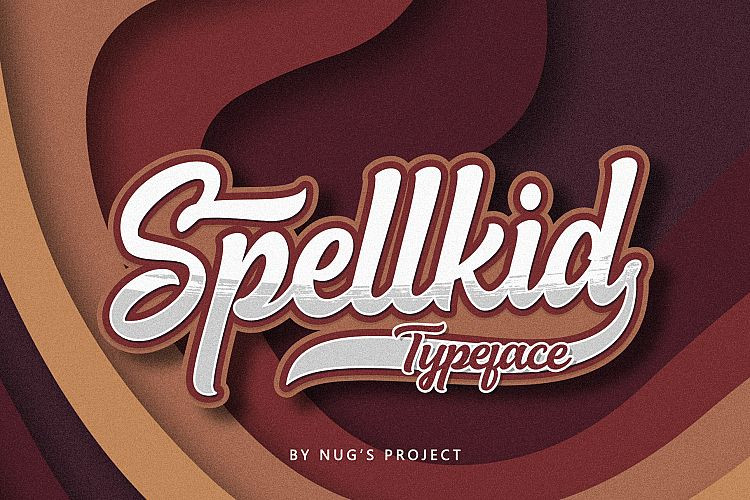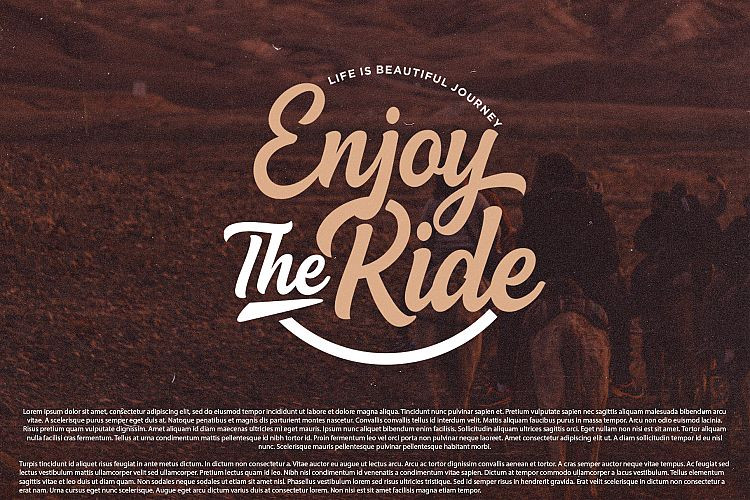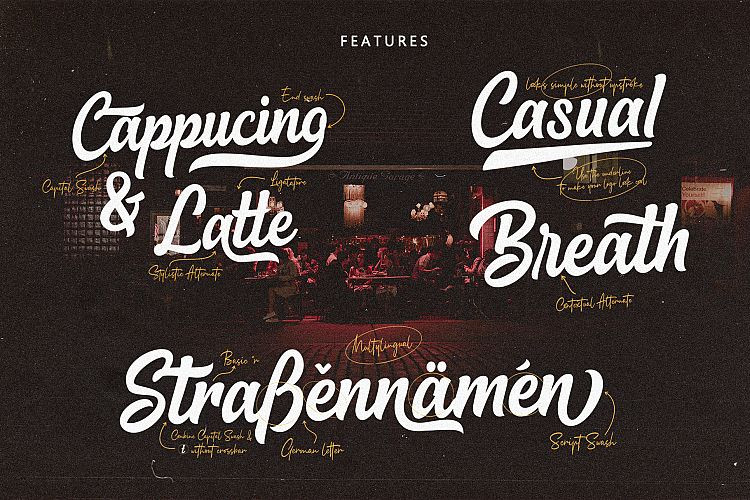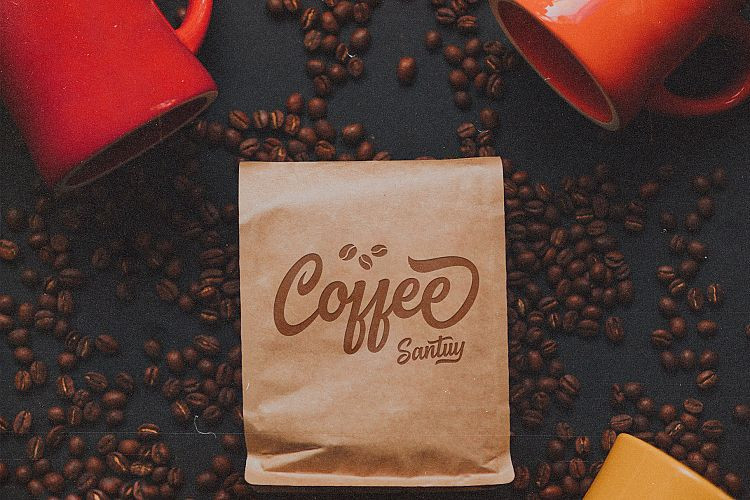
Spellkid Script Font
Spellkid Script – Demo Font
Hi Font Lover! This is a layered bold script with the outline and extrude, inspired by a Retro aesthetic. Having that handmade feel and personal touch certainly gives it a hint of authenticity perfect for any of your upcoming projects. Introducing Spellkid Font. It’s a bold script, with a clean lines and smooth curve combined with the beautiful features! It’s a stylish script font, perfect for logo design, branding, clothing design, signage, posters, wedding invitations and so much more!